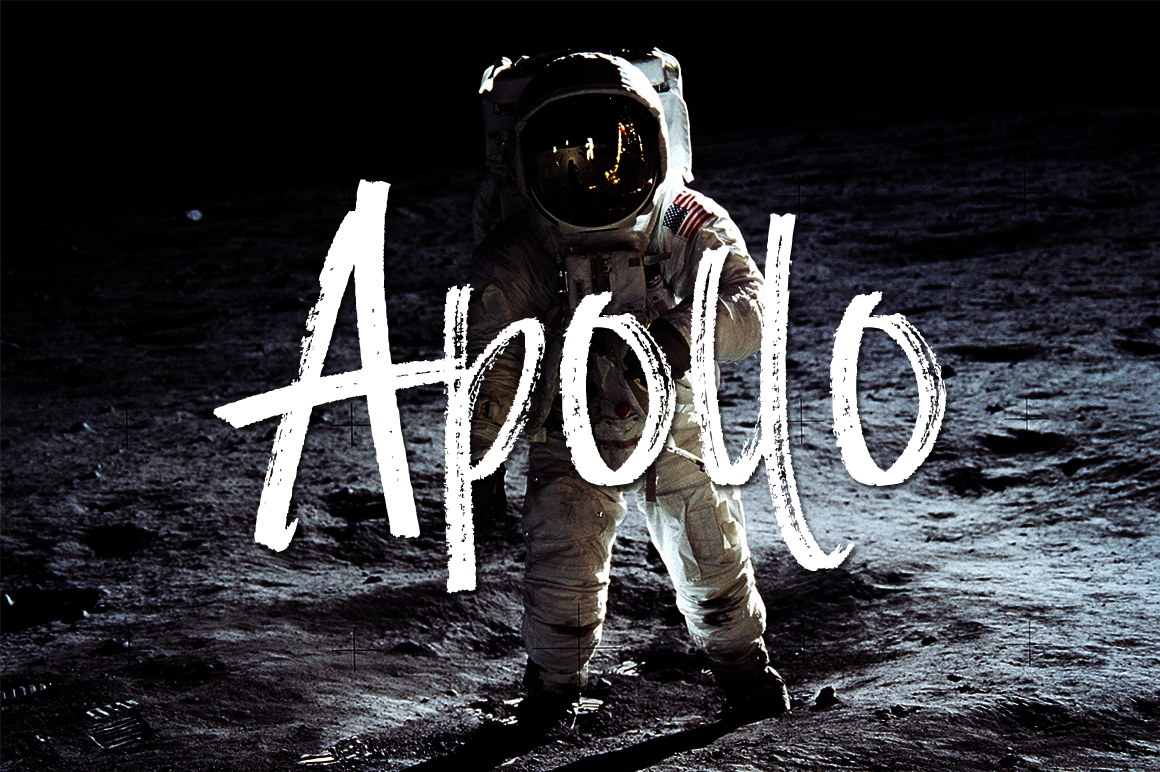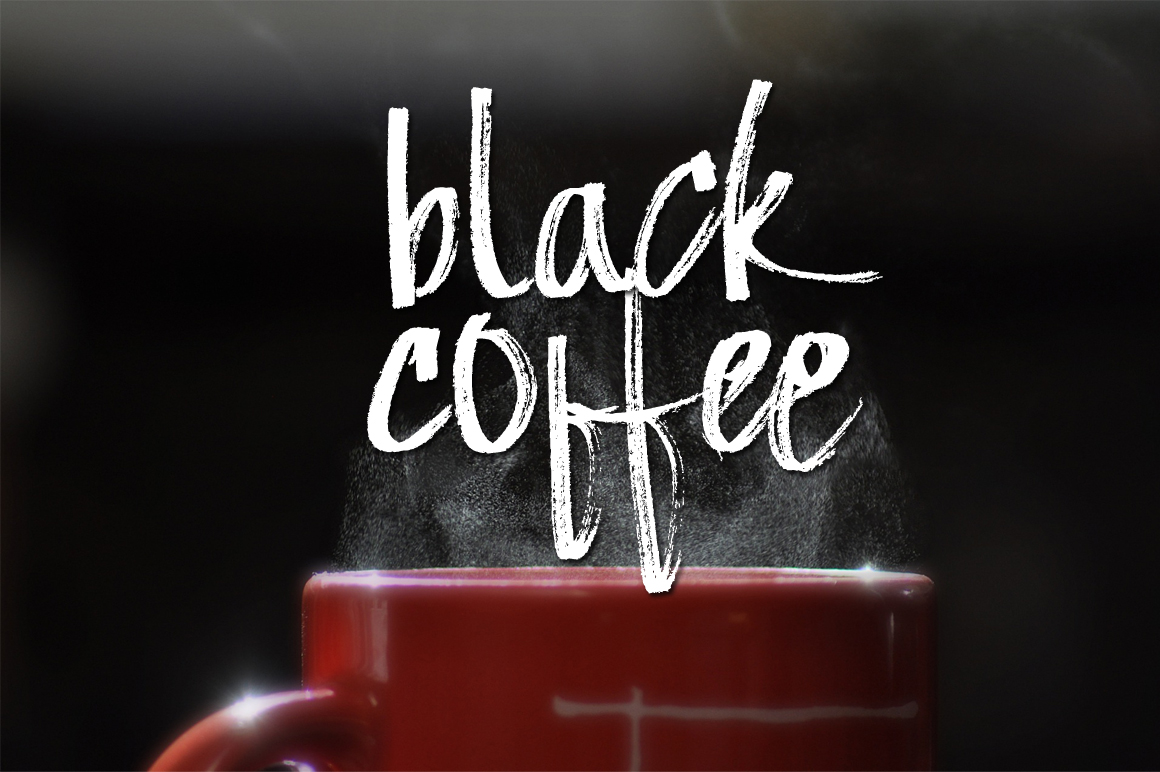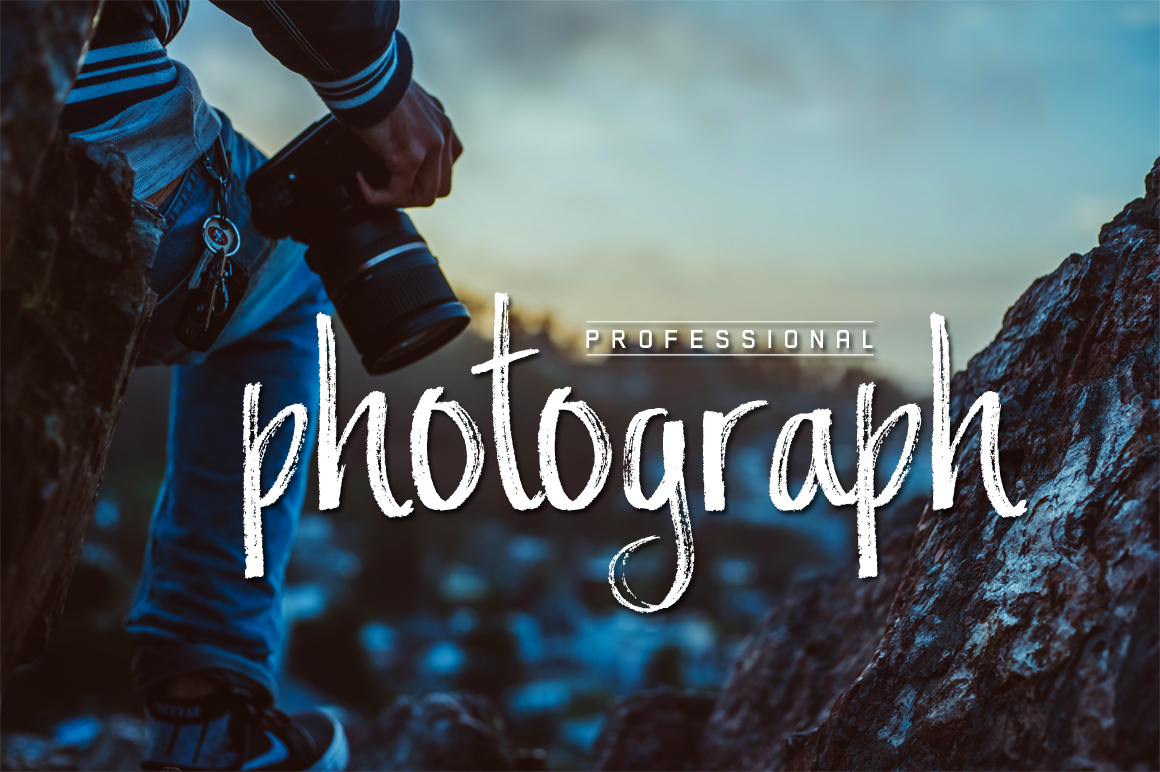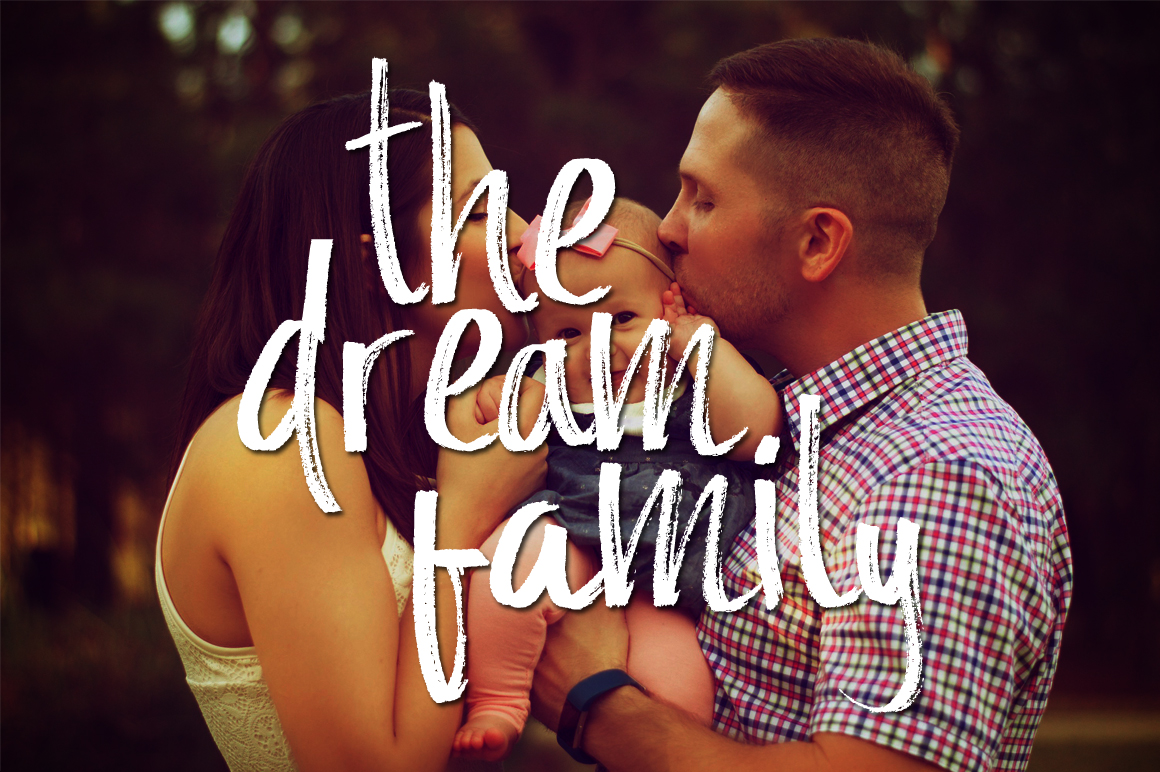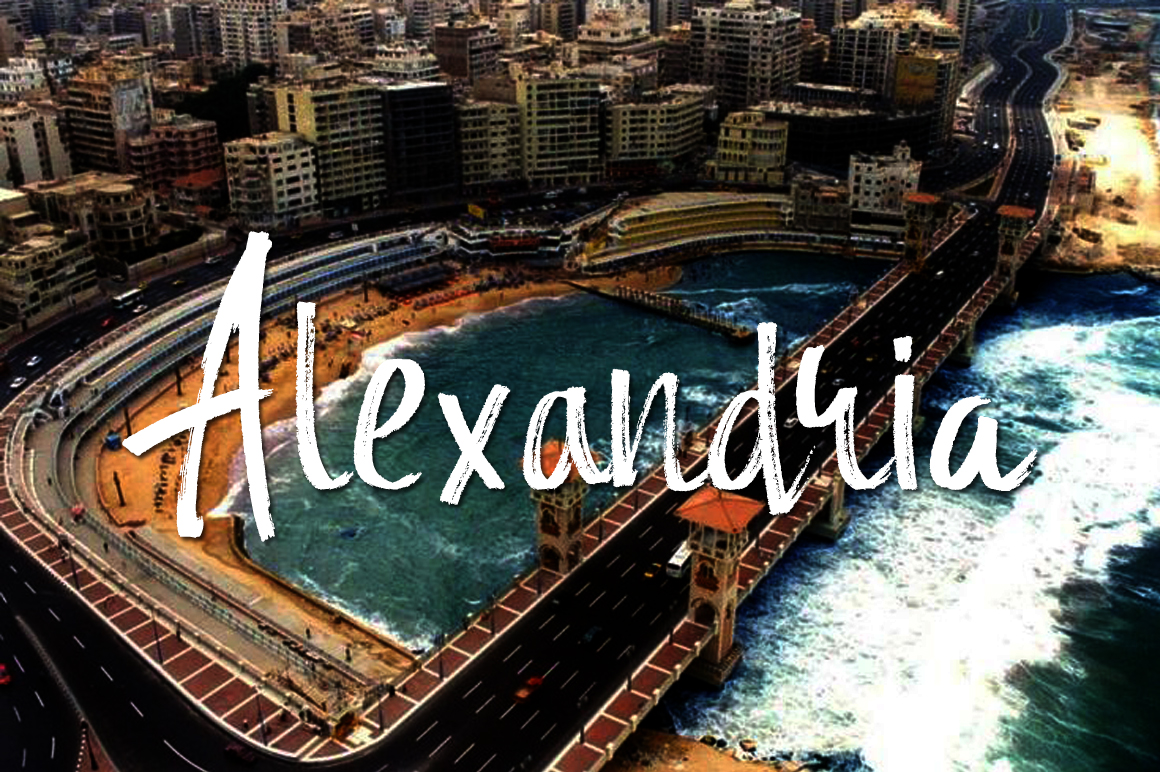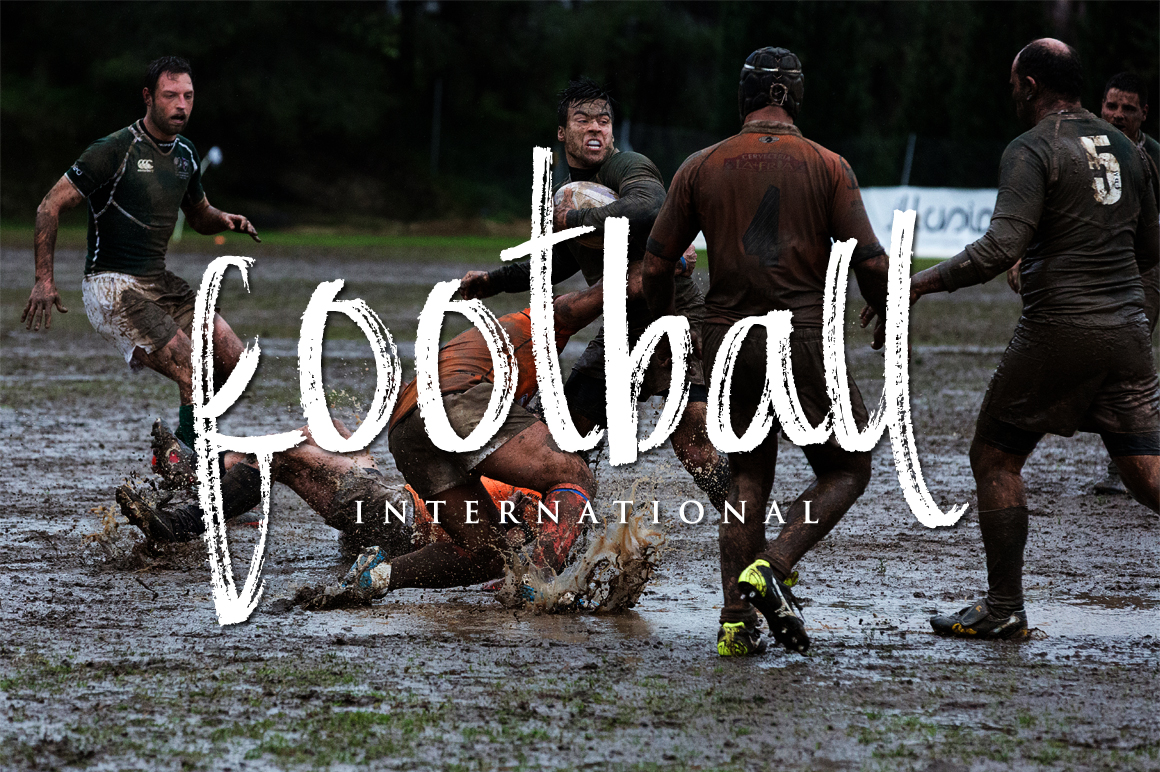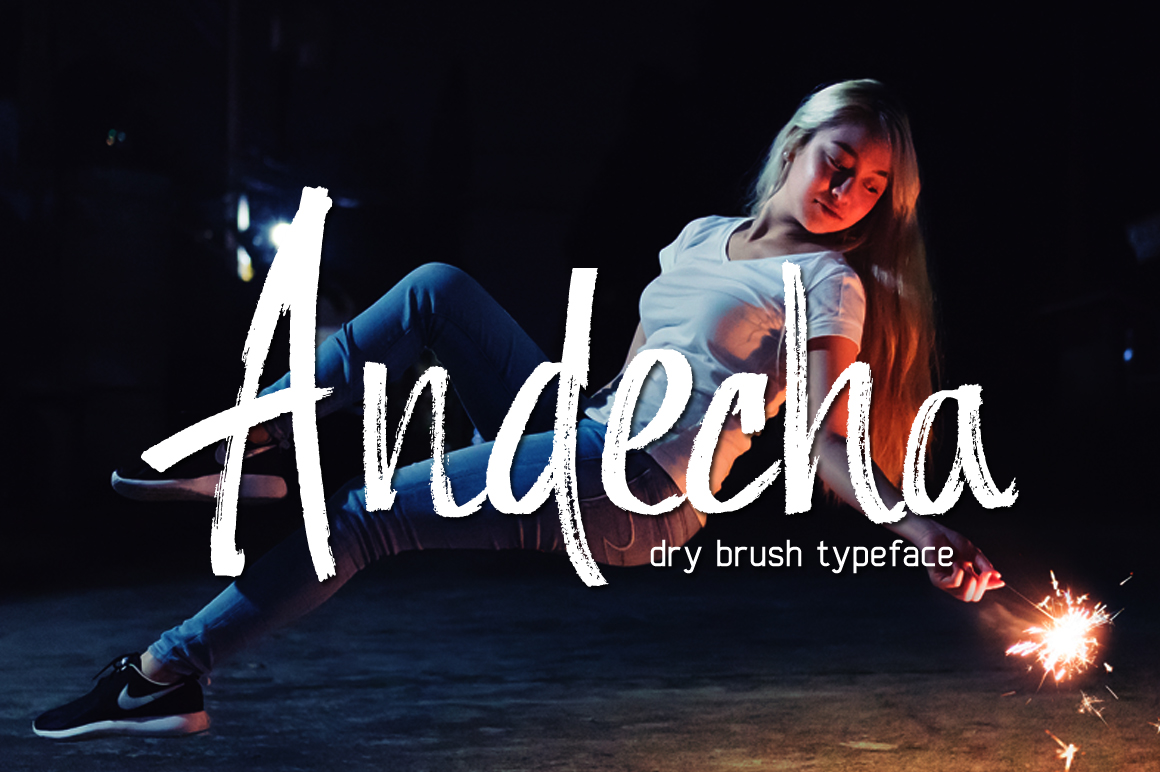
The Andecha Font: A Hand-Brushed Gem for Creative Projects
I’ll never forget the time I was working on a project for a client’s wedding invitation. I had the design concept nailed down, but I was struggling to find the perfect font. That’s when I stumbled upon the Andecha font. Its hand-brushed charm instantly captured the whimsical and romantic vibe of the wedding, and I knew I had found the one. In this article, I’ll share my love for the Andecha font, its features, and how to make the most of it in your creative projects.
An Honest Review of Andecha Font
What I Love About Andecha Font ✨
- 💕 Unique hand-brushed texture that adds a personal touch to any design
- ✅ Highly versatile and suitable for a wide range of projects, from t-shirts to social media graphics
- 🎨 Excellent for creating visually appealing headings, titles, and quotes
- 📸 Works well with both images and text, making it perfect for collages and graphics
- ⚠️ May not be the best choice for body text or long paragraphs, as it can be a bit ornate
- 🤔 Limited availability of certain characters or glyphs, which may require some creative workarounds
- Experiment with the font’s OpenType features, such as stylistic alternates and glyphs, to add more personality to your design.
The Story Behind Andecha Font
The Andecha font was designed by a talented typographer who wanted to create a font that captured the essence of hand-brushed lettering. Inspired by the imperfections and uniqueness of hand-painted signs, the designer crafted a font that’s both elegant and playful. The result is a font that’s perfect for creative projects that require a personal touch.
A: Andecha font is ideal for a wide range of projects, including t-shirts, magazines, phone covers, social media graphics, restaurant menus, greeting cards, invitations, and more.
A: Absolutely! Andecha font pairs well with many other fonts. Experiment with different font combinations to find the perfect match for your design.